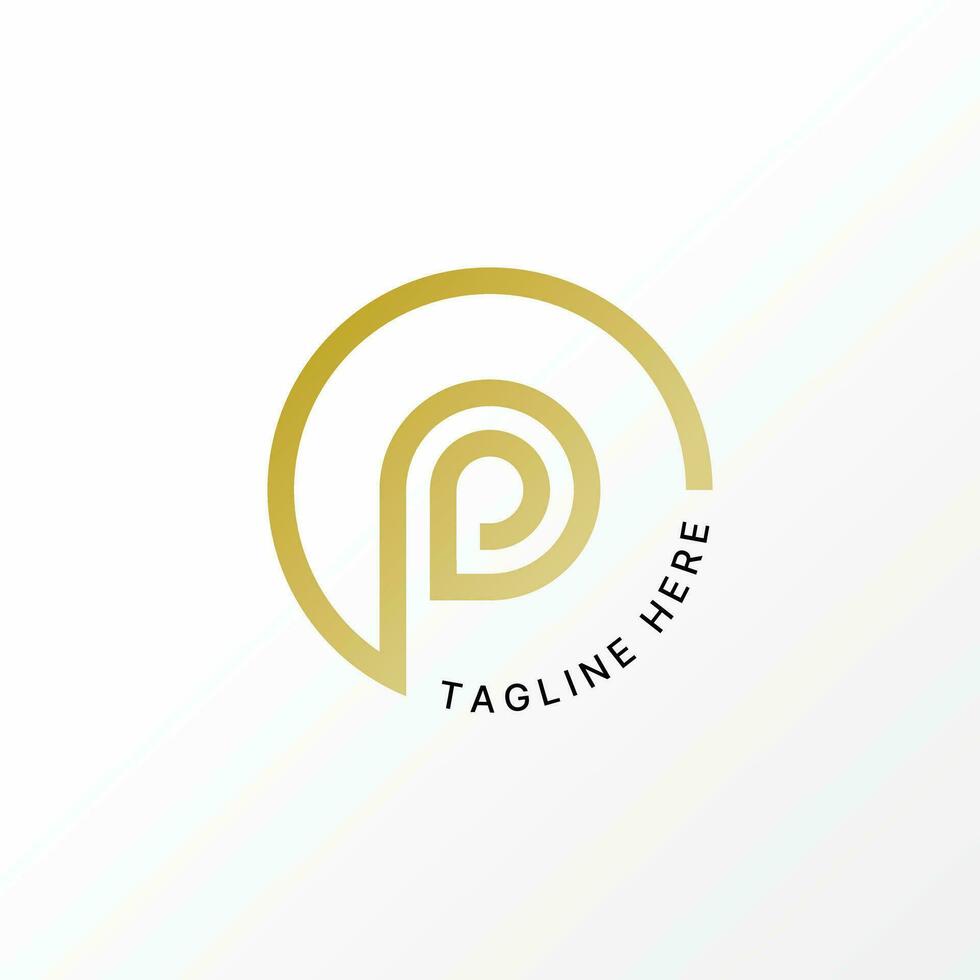
Logo design graphic concept creative abstract premium vector stock letter initial PP or PD font with circle lines. Related monogram typography initial Pro Vector